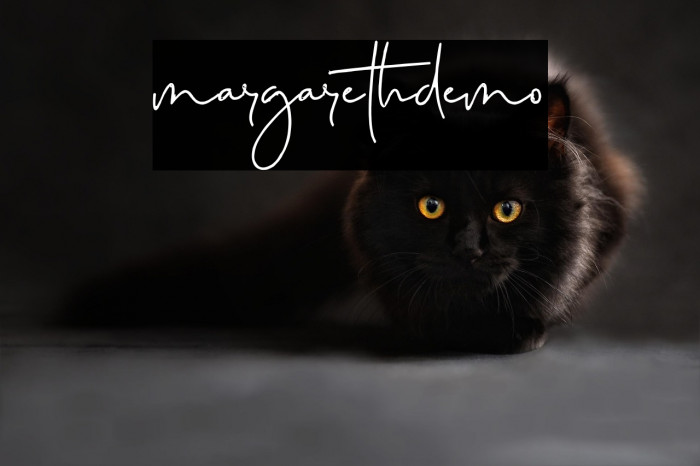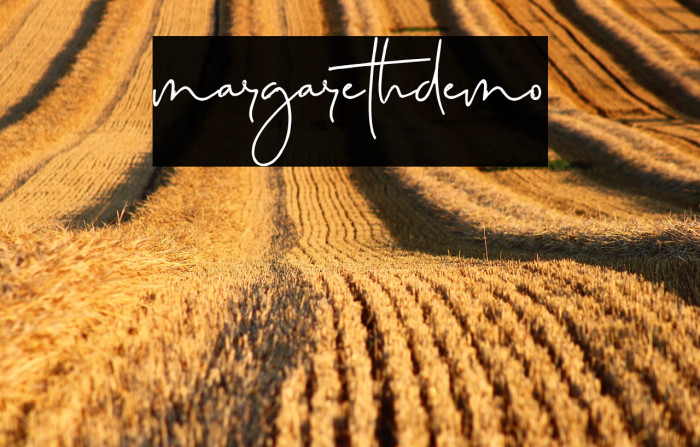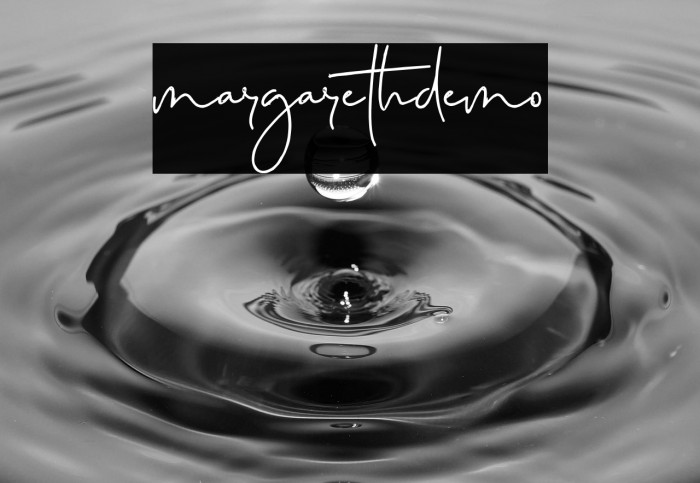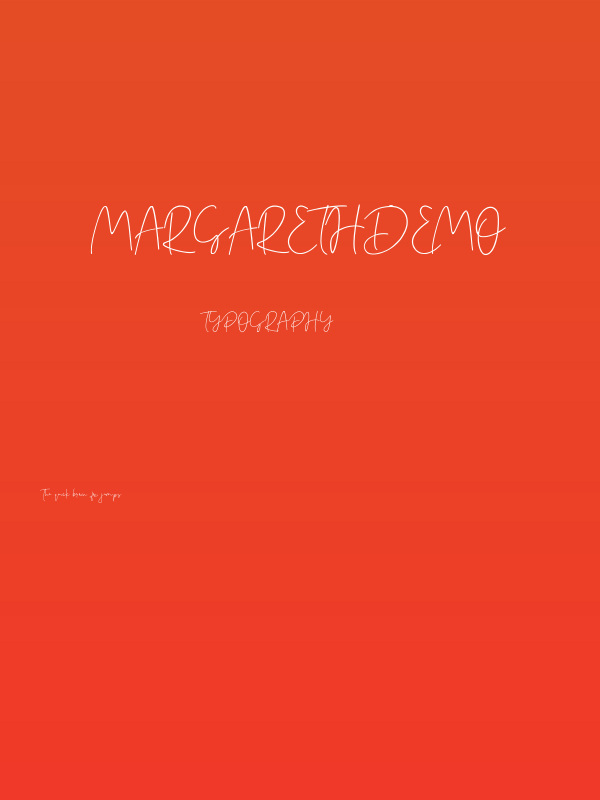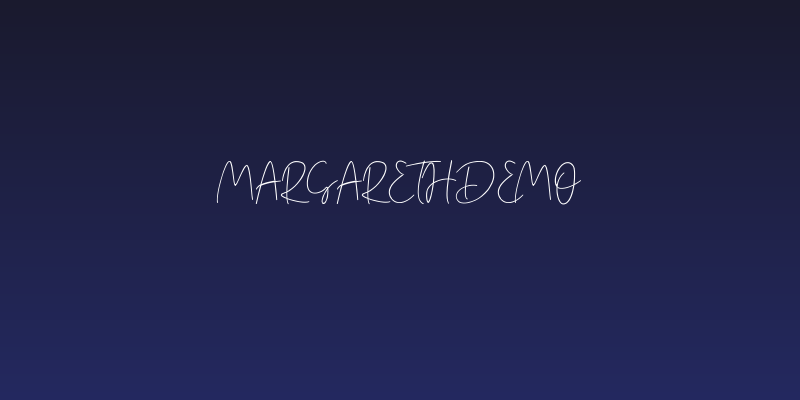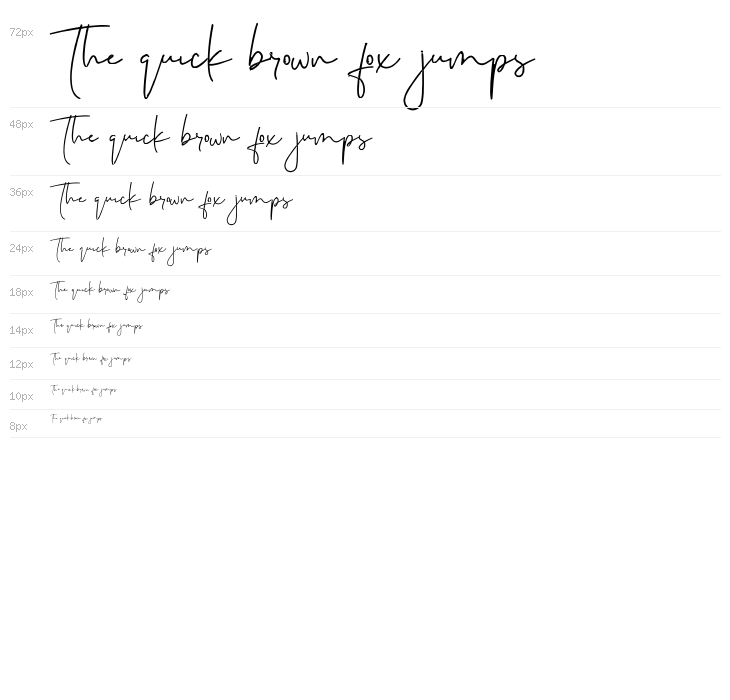
margarethdemo Font
margarethdemo Description
This font features a whimsical, handwritten style with a playful and artistic flair. The letters are characterized by their flowing, cursive-like strokes, which give a sense of movement and dynamism. The uppercase letters are bold and expressive, with unique loops and curves that add personality to each character. The lowercase letters maintain a consistent style, complementing the uppercase with their own distinct charm. The numbers and special characters follow the same aesthetic, ensuring a cohesive look across all elements. This font is perfect for projects that require a personal touch, such as invitations, greeting cards, or creative branding.
| Proposed Projects | Ideal for invitations, greeting cards, creative branding, and artistic projects. |